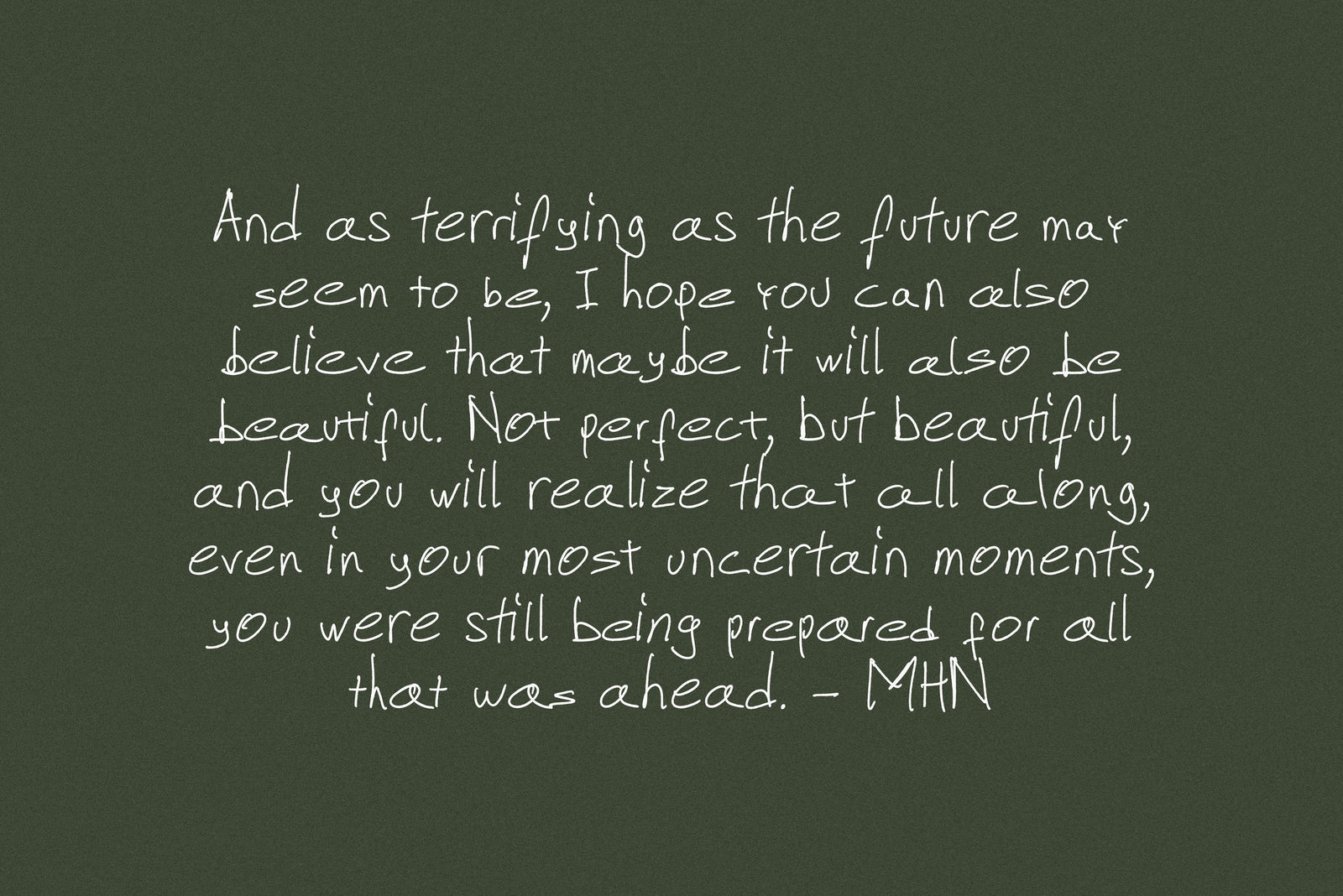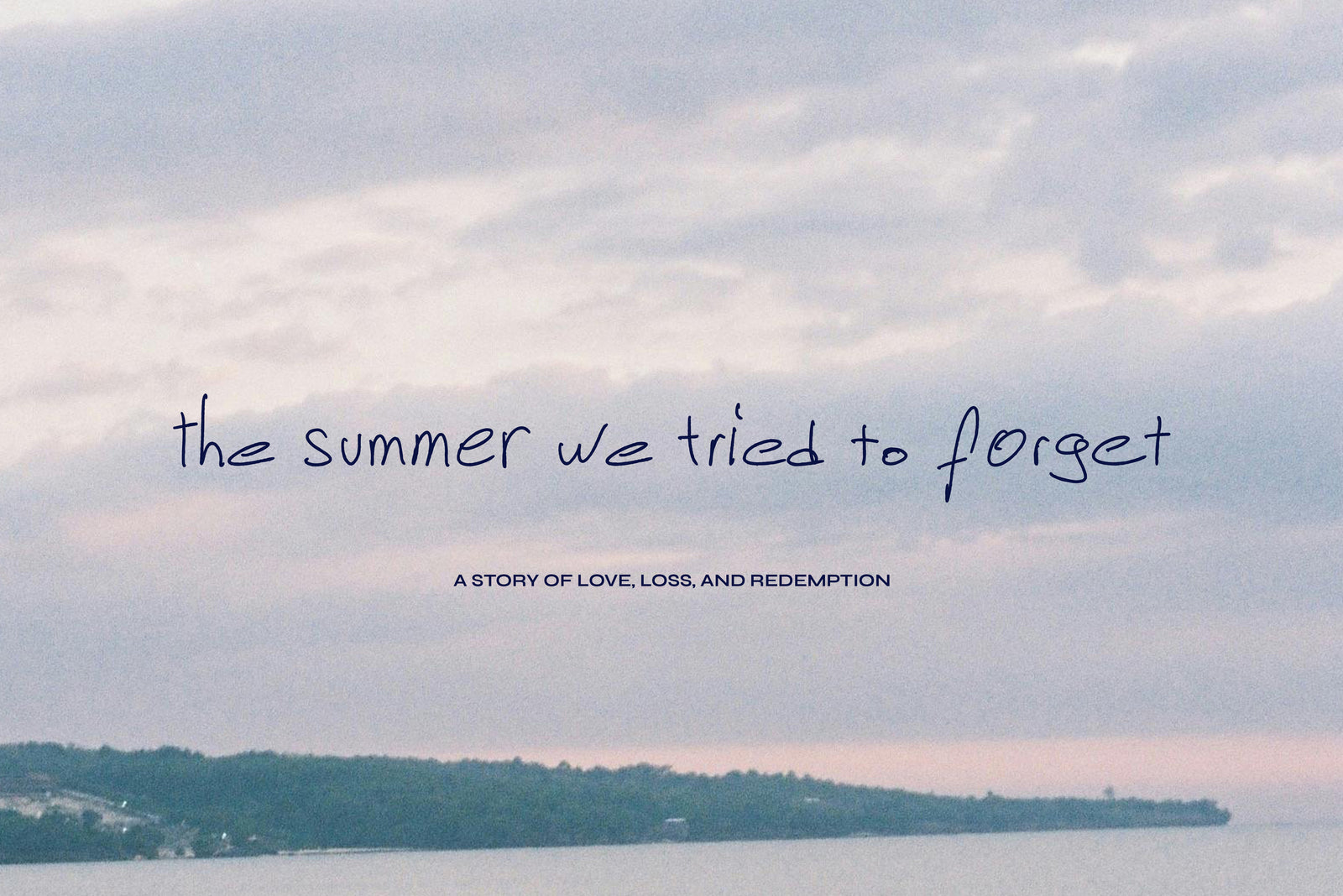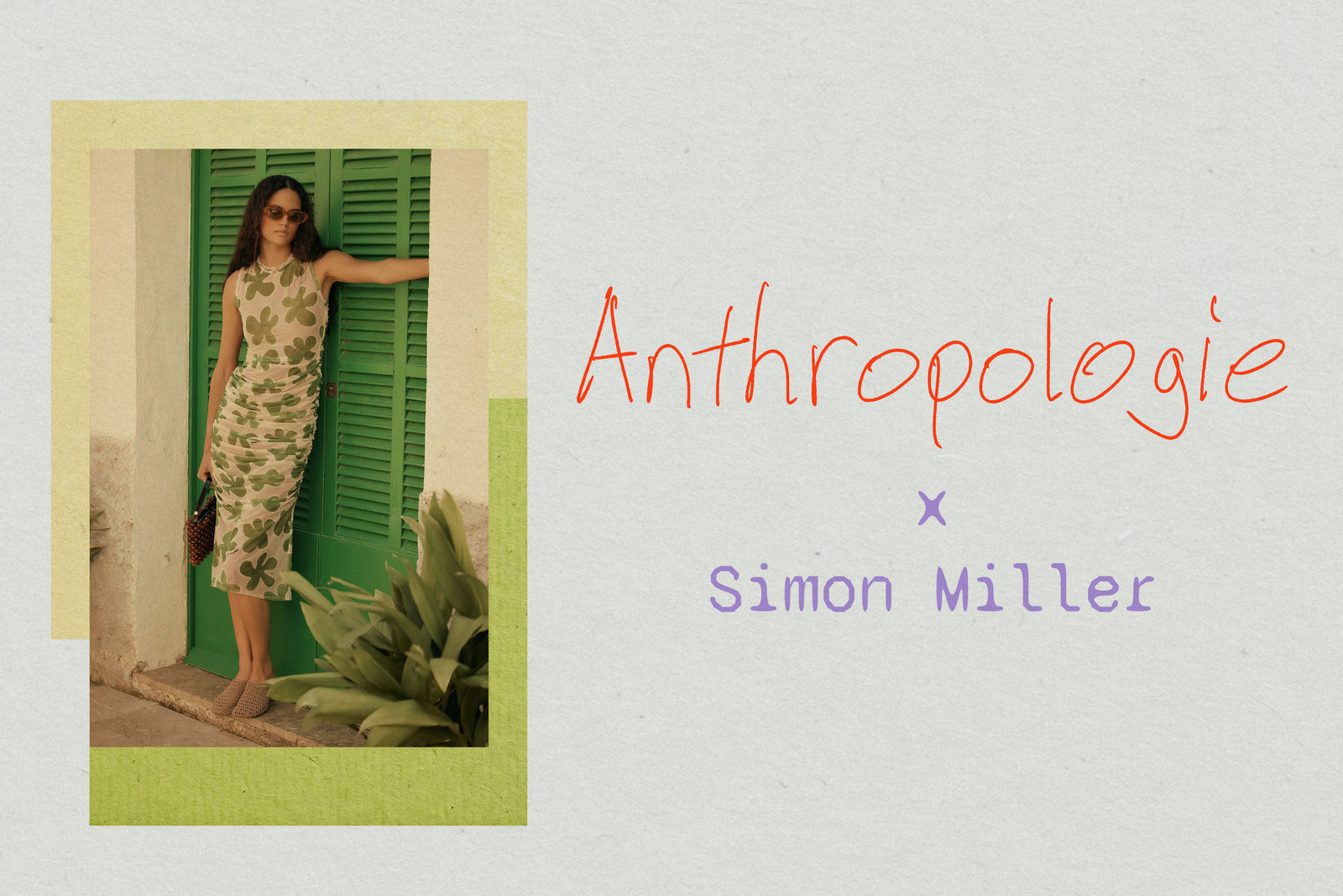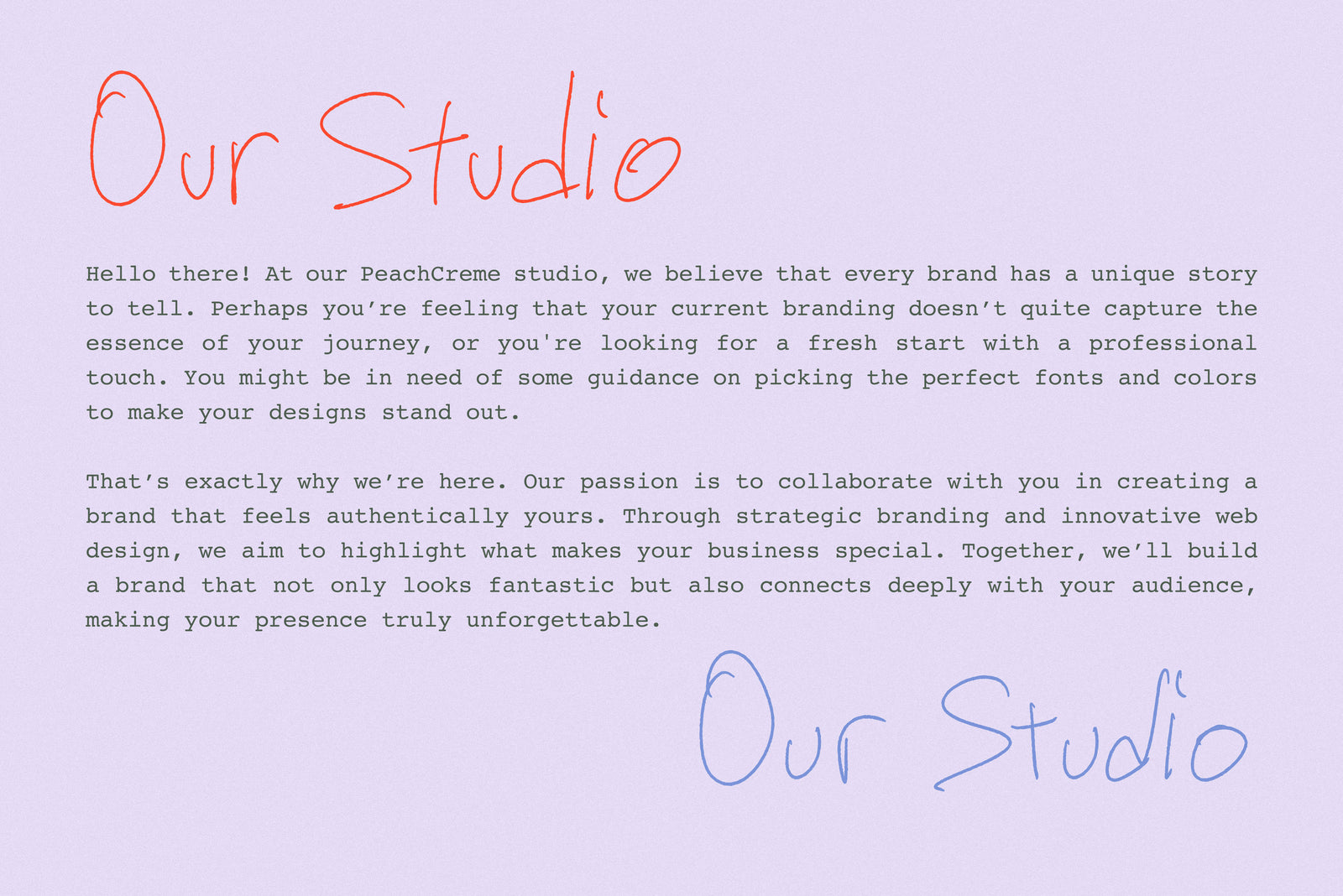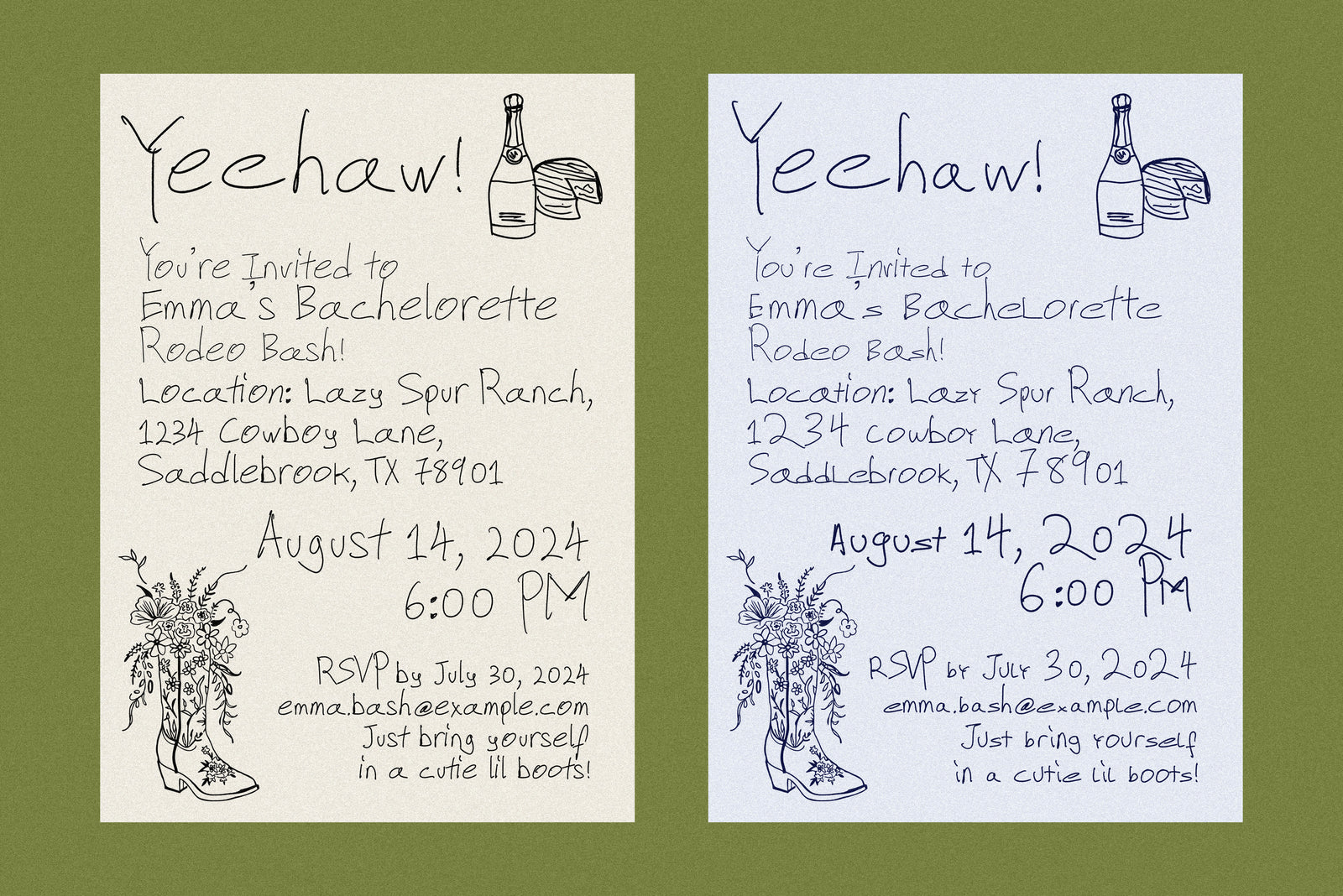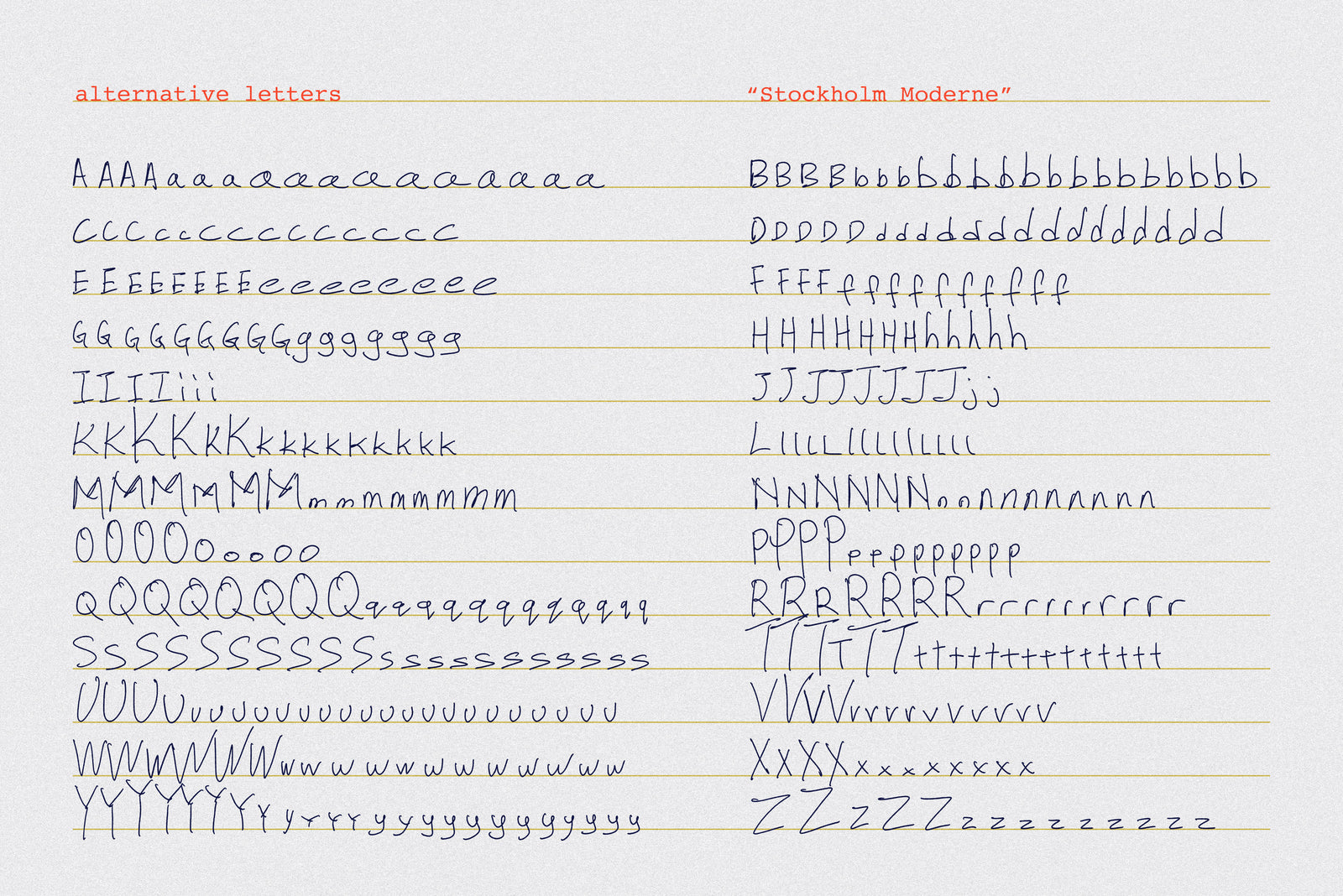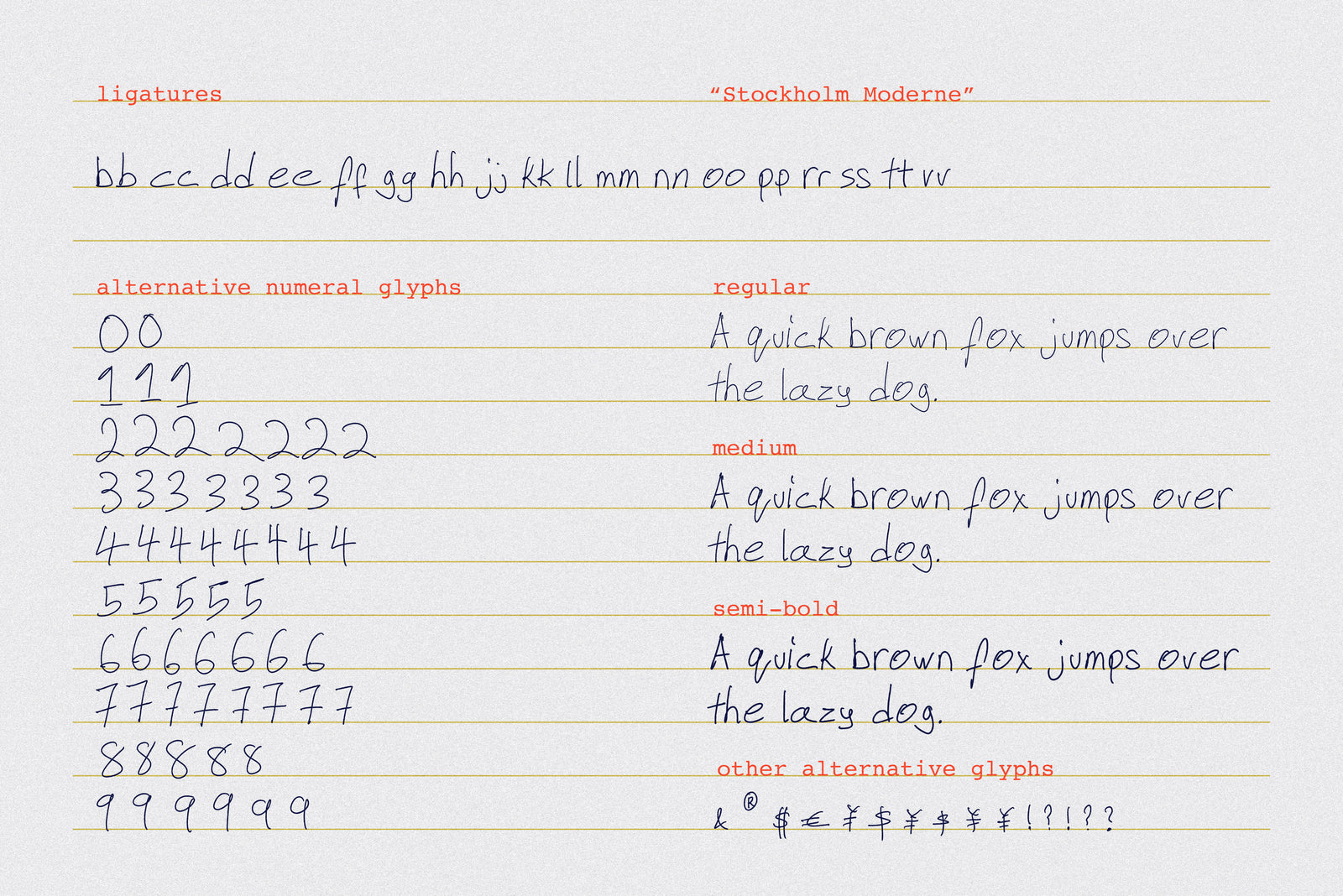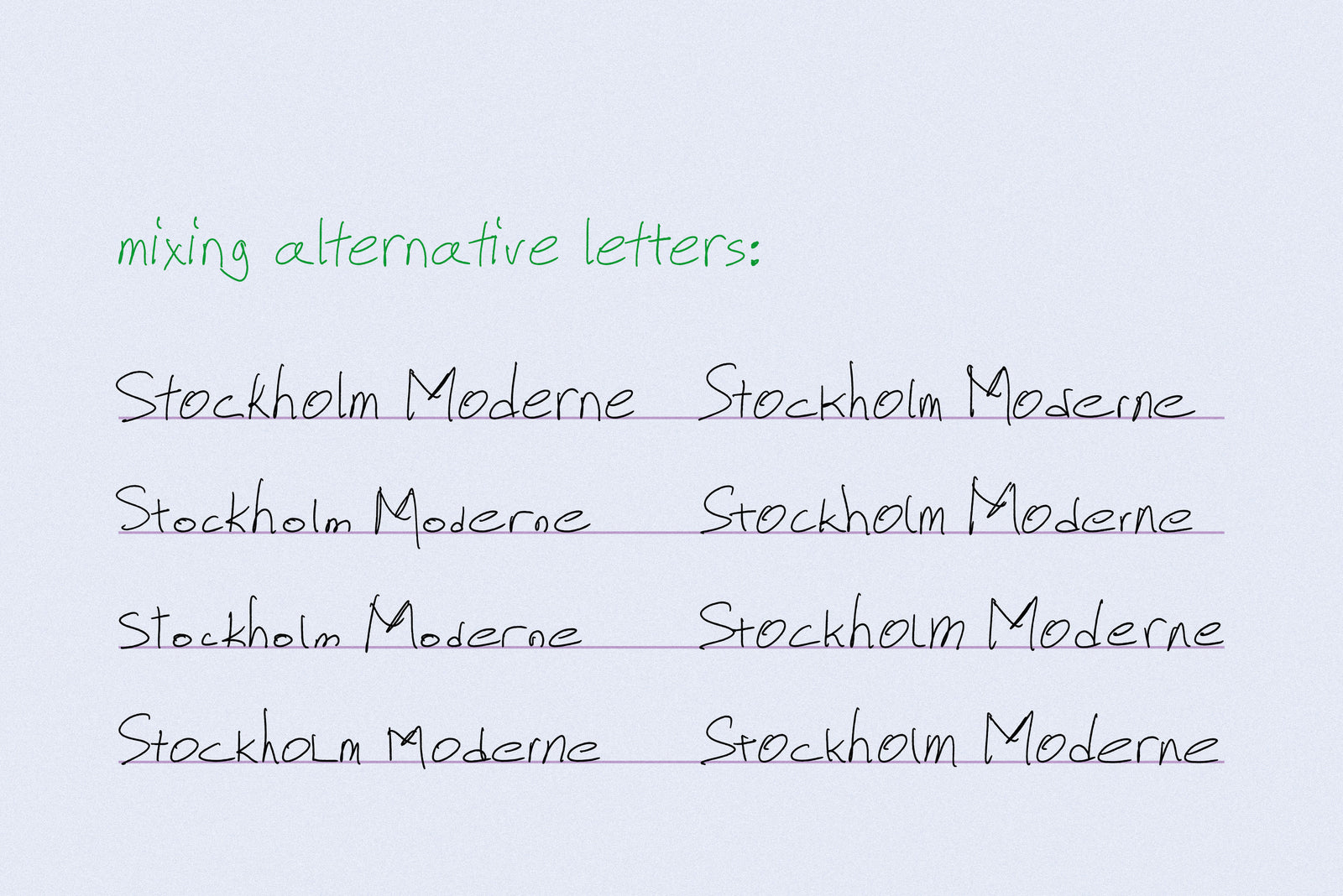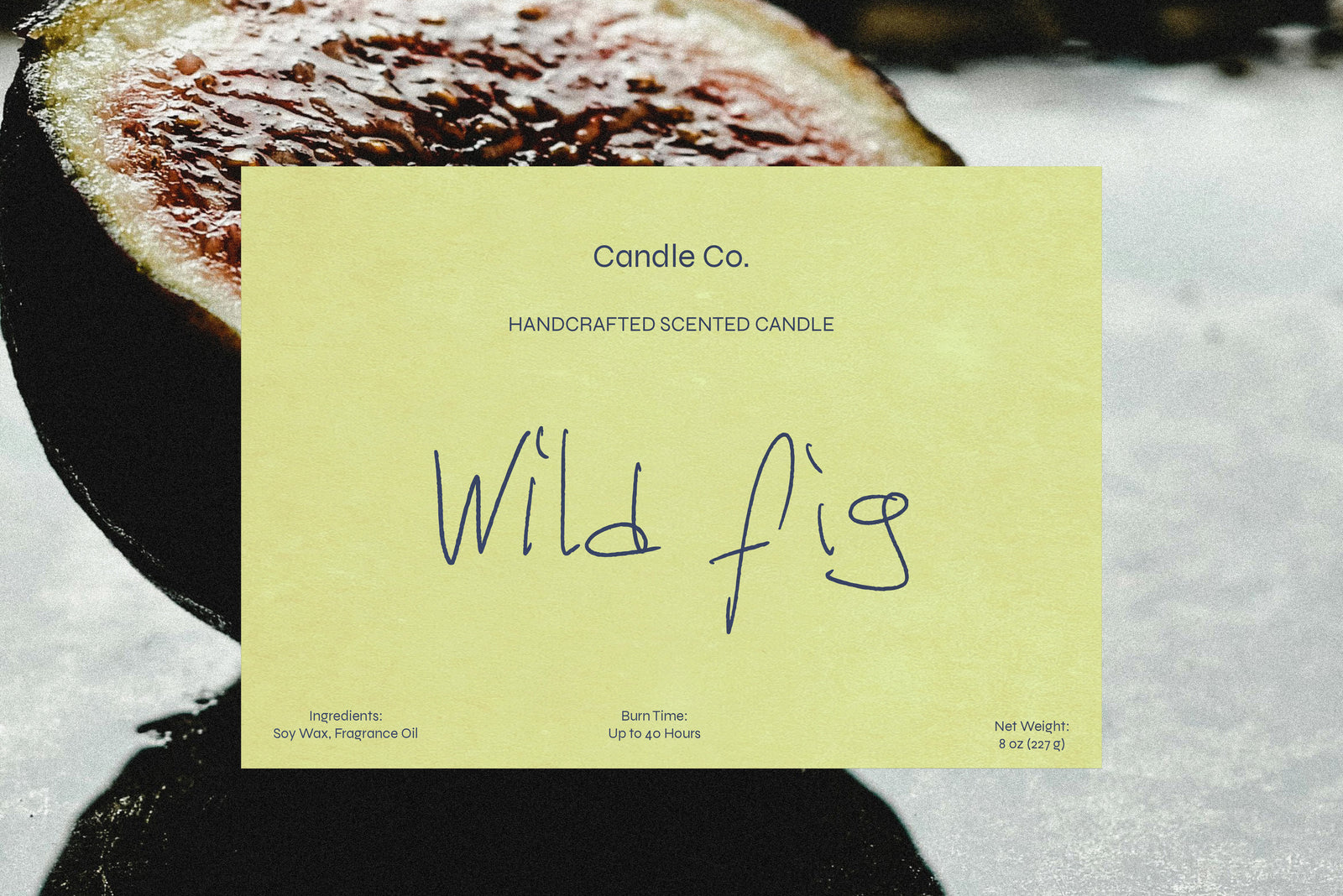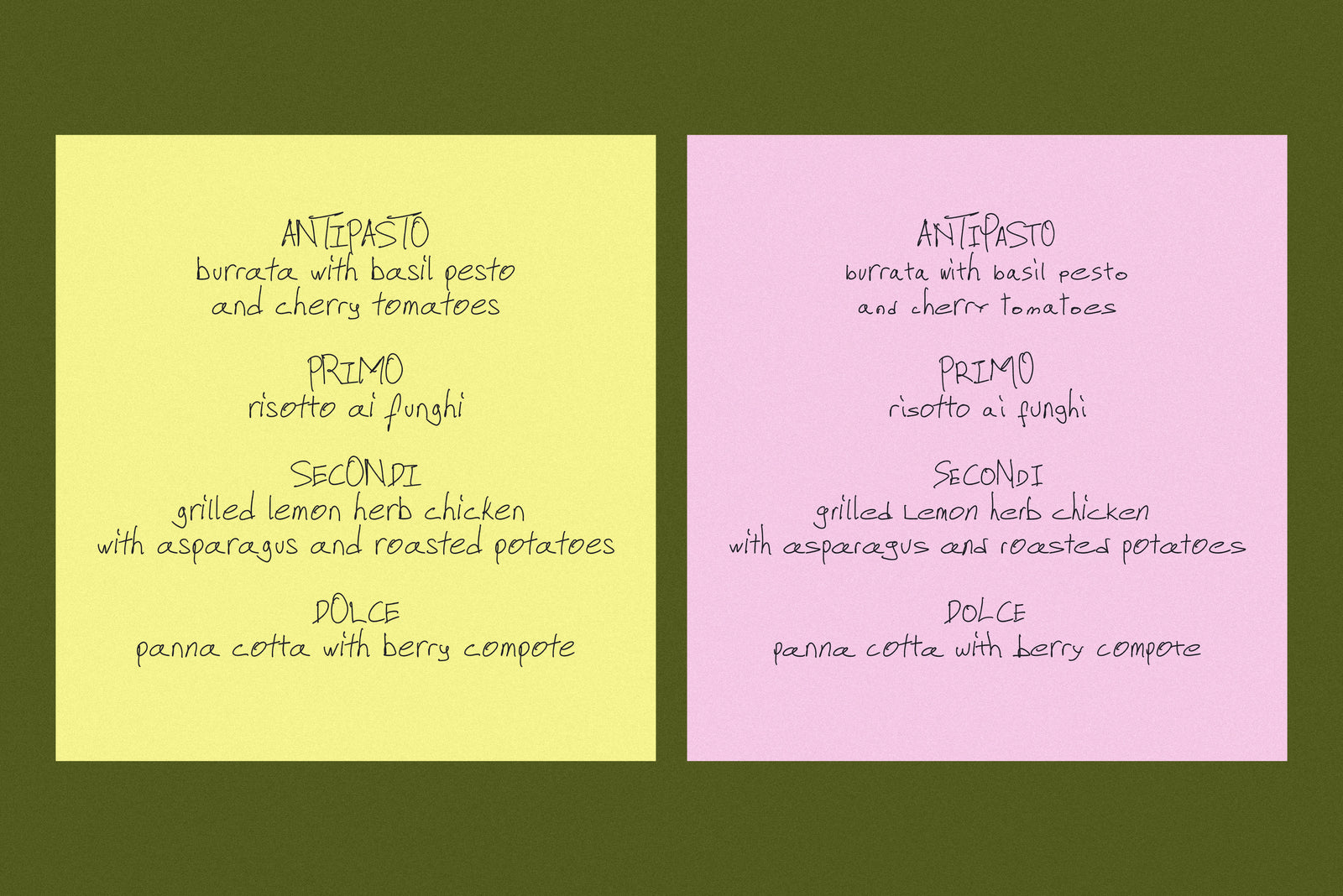
Stockholm Moderne is a casual hand-lettered font that brings a relaxed, handwritten touch to your projects. Perfect for adding a personal feel to invitations, greeting cards, and creative designs. The font features an extensive selection of alternate letters, allowing you to mix and match for a more unique look. Available in three weights, it offers versatility for different design needs. For a closer look at the alternate letters and overall style, refer to the presentation image.
Stockholm Moderne // Casual Font